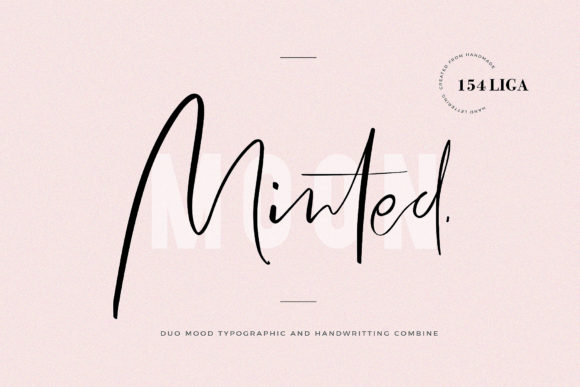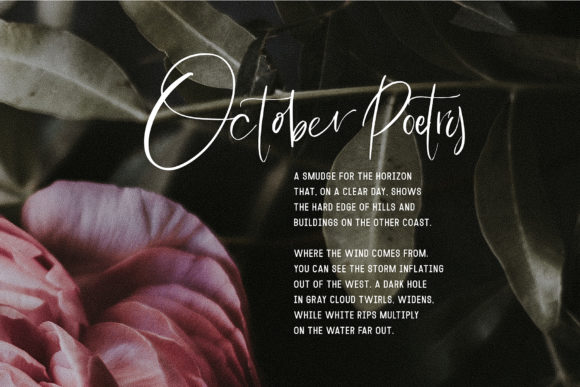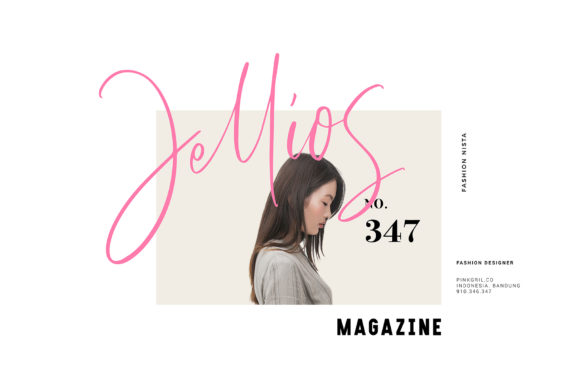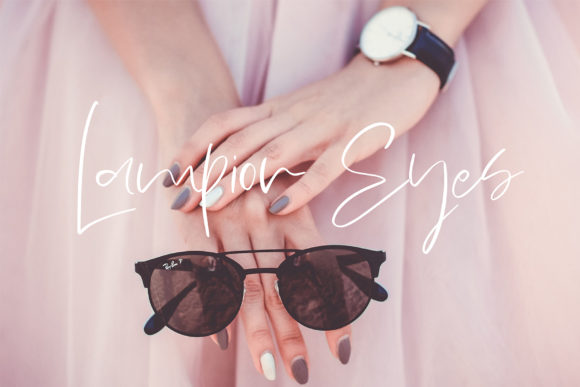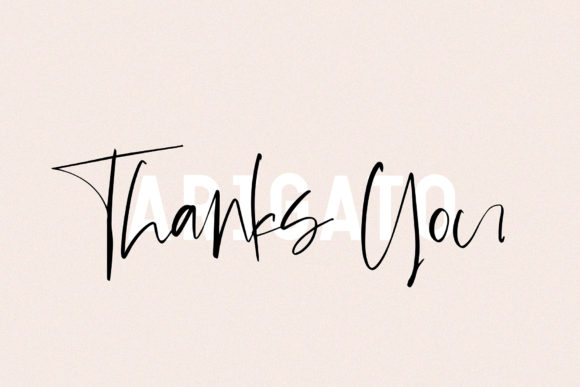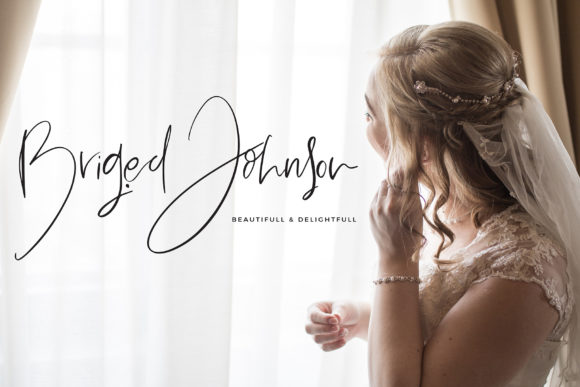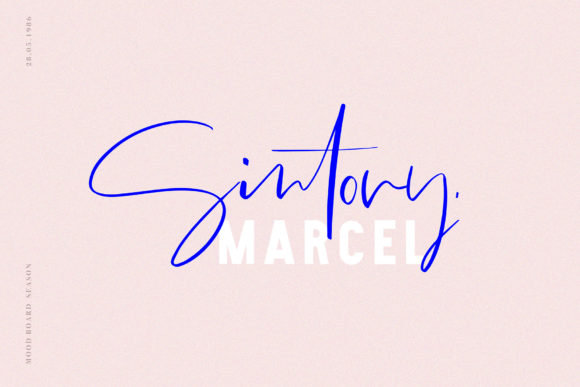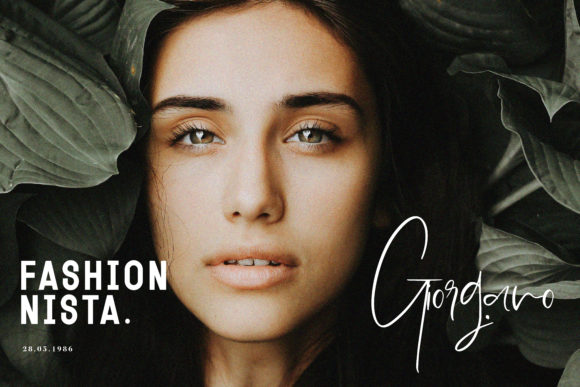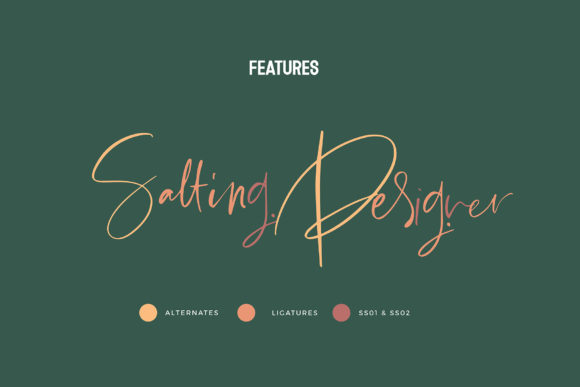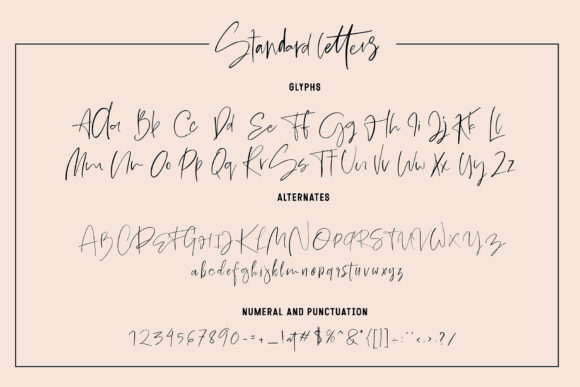
HomeScript FontsMinted Font Script Fonts Minted Font FacebookXPinterestWhatsApp Minted Font Poster 2 Minted Font Poster 3 Minted Font Poster 4 Minted Font Poster 5 Minted Font Poster 6 Minted Font Poster 7 Minted Font Poster 8 Minted Font Poster 9 Minted Font Poster 10 Minted Font Poster 11 Minted Font Poster 12 Minted Font Poster 13 Minted Font Poster 14 Minted Font Poster 15 About Minted Font Minted is an easy-to-use script with gorgeous lettering. Get inspired by its authentic charm! DOWNLOAD ON CREATIVE FABRICAThis font is sold and delivered by Creative Fabrica. Font Canyon may earn a commission if you buy through this link. People also explored Helynovia Font Classy Font Masko Font The RightPath Font Butter Font Mingle Font Running Wolf Font Hearttiger Font Wednesday Font 356 0 TagsMinted Font Previous articleBheiaga FontNext articleRhonda Font LEAVE A REPLY Cancel reply Comment: Please enter your comment! Name:* Please enter your name here Email:* You have entered an incorrect email address! Please enter your email address here Website: Save my name, email, and website in this browser for the next time I comment. Personal Use Free Shkoder 1989 Personal Use Free Read more about this font Sheiloria Personal Use Free Read more about this font Oatmeal Personal Use Free Read more about this font Arc Personal Use Free Read more about this font BLOG To increase your work productivity, choose the most readable fonts. In today's fast-paced work environment, where digital communication and information consumption are integral to our daily routines, the choice of fonts can significantly impact... Fonts That Capture the Spirit of New York City Exploring Font Trends Top 10 Handwritten Fonts That Elevate Your Designs